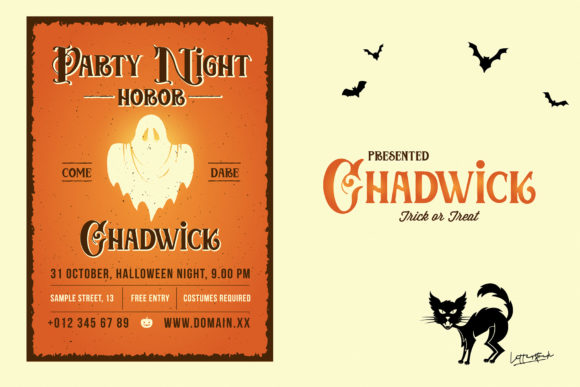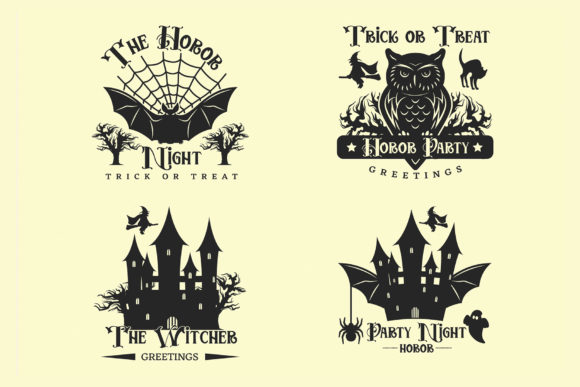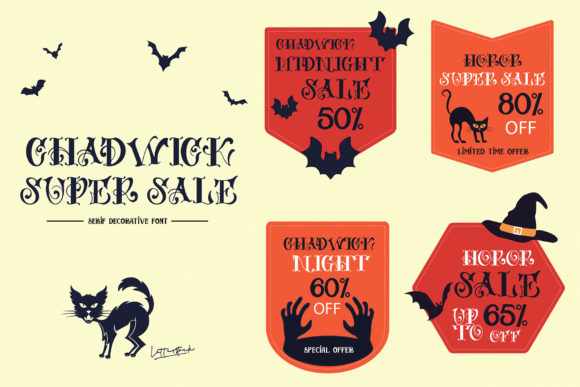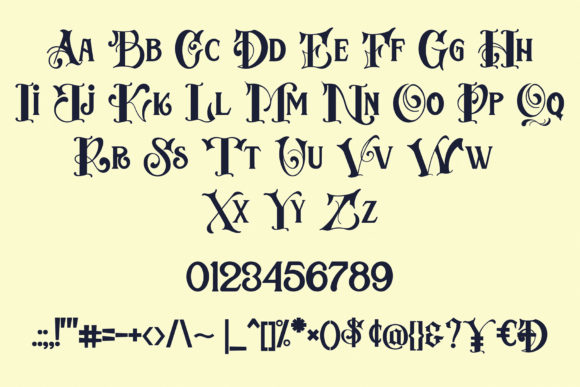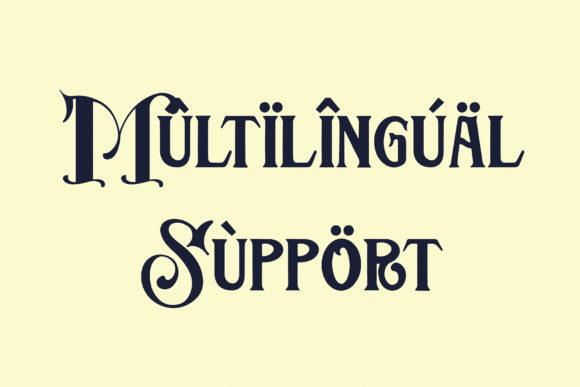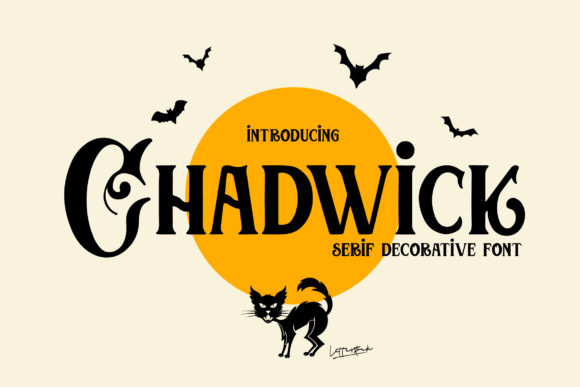
Introducing Chadwick Font: The Bold and Spooky Serif Font for Your Creative Projects
Are you a designer or crafter looking for a font that can add a touch of eeriness and sophistication to your creations? Look no further than the Chadwick font. This bold and spooky looking serif font is an incredibly versatile asset that can elevate any project, regardless of the topic or theme.
What Makes Chadwick Font Stand Out?
Chadwick font is a unique and eye-catching serif font that is sure to grab attention. Its bold and chunky lettering gives it a spooky and mysterious vibe, making it perfect for projects that require a touch of darkness and intrigue. The font’s serif details add a level of sophistication and elegance, making it suitable for a wide range of creative projects.
Key Features of Chadwick Font
- Bold and Chunky Lettering: Chadwick font features bold and chunky lettering that gives it a commanding presence.
- Spooky and Mysterious Vibe: The font’s unique design elements evoke a sense of eeriness and mystery, making it perfect for Halloween-themed projects or horror-inspired designs.
- Sophisticated Serif Details: The font’s serif details add a level of sophistication and elegance, making it suitable for a wide range of creative projects.
- Highly Versatile: Chadwick font can be used for a variety of projects, from logos and branding to packaging and advertising.
How to Use Chadwick Font in Your Creative Projects
Chadwick font can be used in a variety of creative projects, including:
- Logos and Branding: Use Chadwick font to create a bold and eye-catching logo that grabs attention.
- Halloween-themed Designs: The font’s spooky and mysterious vibe makes it perfect for Halloween-themed designs, such as invitations, posters, and social media graphics.
- Horror-inspired Designs: Chadwick font is also suitable for horror-inspired designs, such as movie posters, book covers, and video game art.
- Packaging and Advertising: The font’s bold and chunky lettering makes it perfect for packaging and advertising projects that require a bold and attention-grabbing headline.
Tips and Tricks for Using Chadwick Font
Here are some tips and tricks for using Chadwick font in your creative projects:
- Experiment with Different Colors: Chadwick font looks great in a variety of colors, from bold and bright to dark and muted.
- Play with Font Sizes: The font’s bold and chunky lettering looks great at large font sizes, but it can also be used at smaller font sizes for a more subtle effect.
- Combine with Other Fonts: Chadwick font can be paired with other fonts to create a unique and eye-catching design.
In conclusion, Chadwick font is a bold and spooky looking serif font that is sure to elevate any creative project. Its unique design elements, highly versatile nature, and sophisticated serif details make it a valuable asset for designers and crafters. Whether you’re working on a Halloween-themed design, a horror-inspired project, or a packaging and advertising campaign, Chadwick font is a great choice.